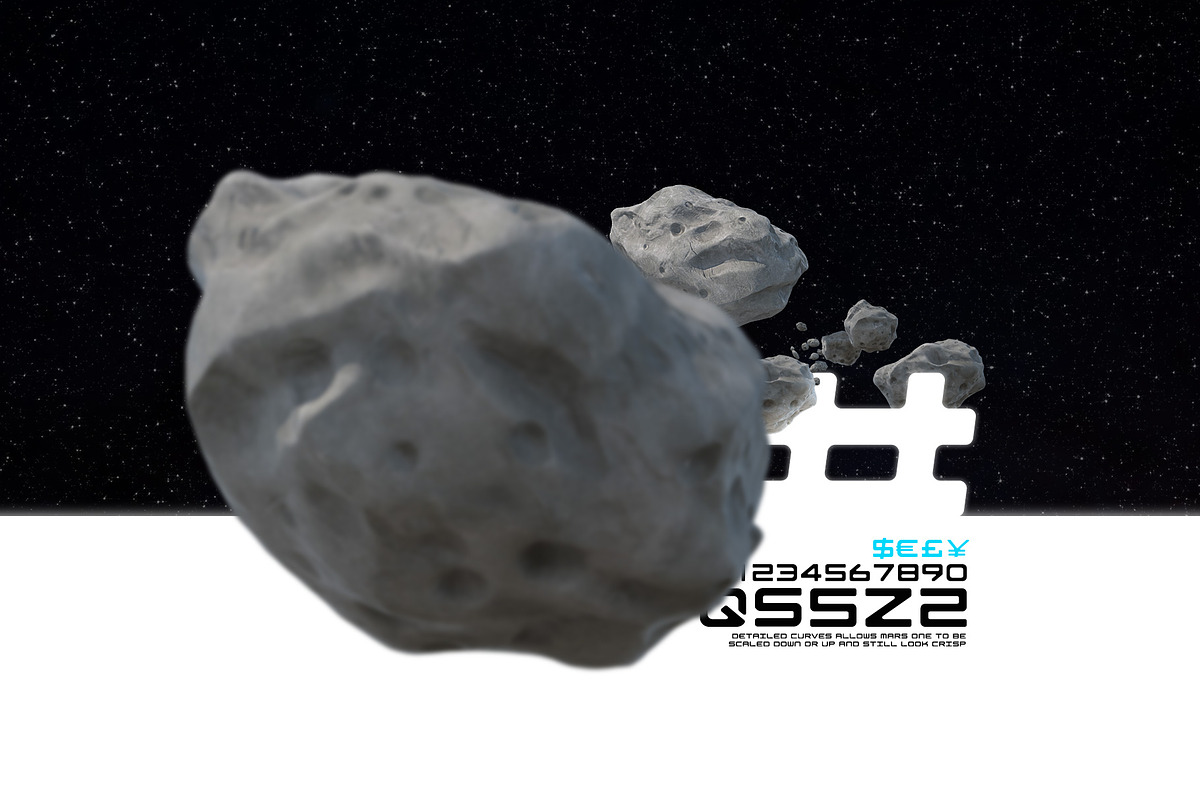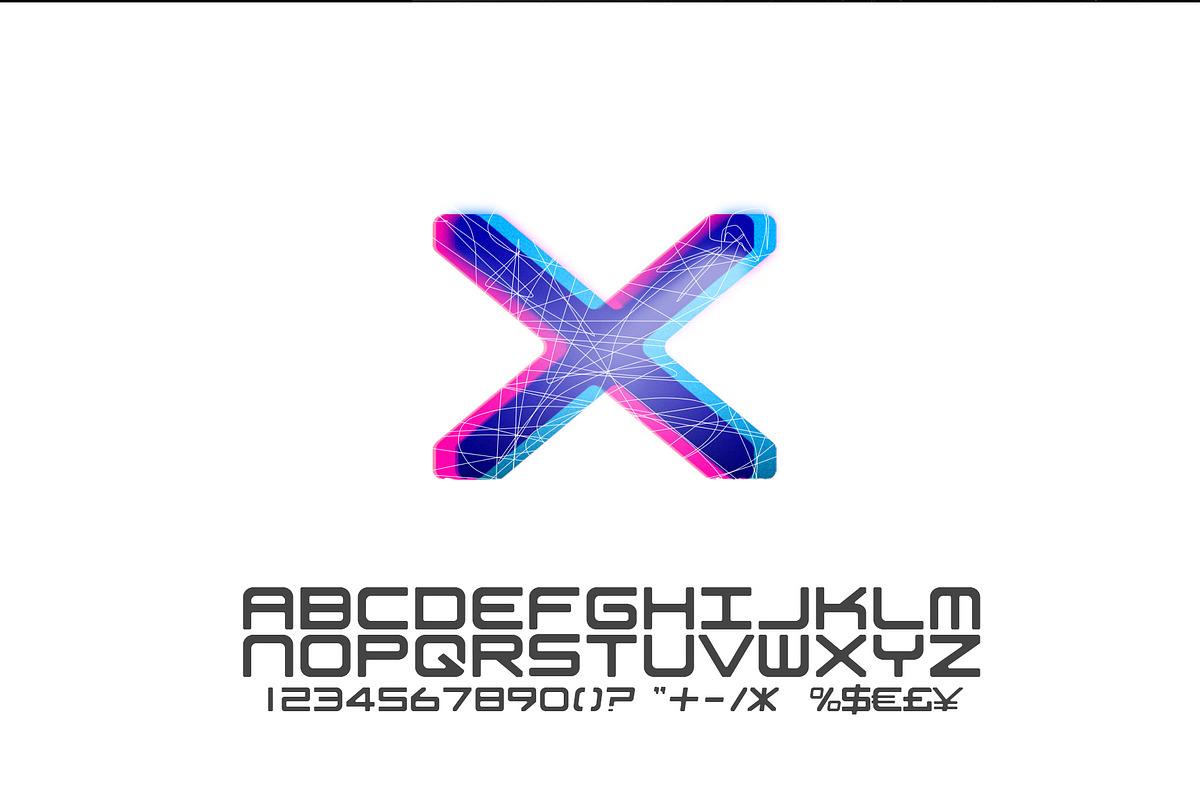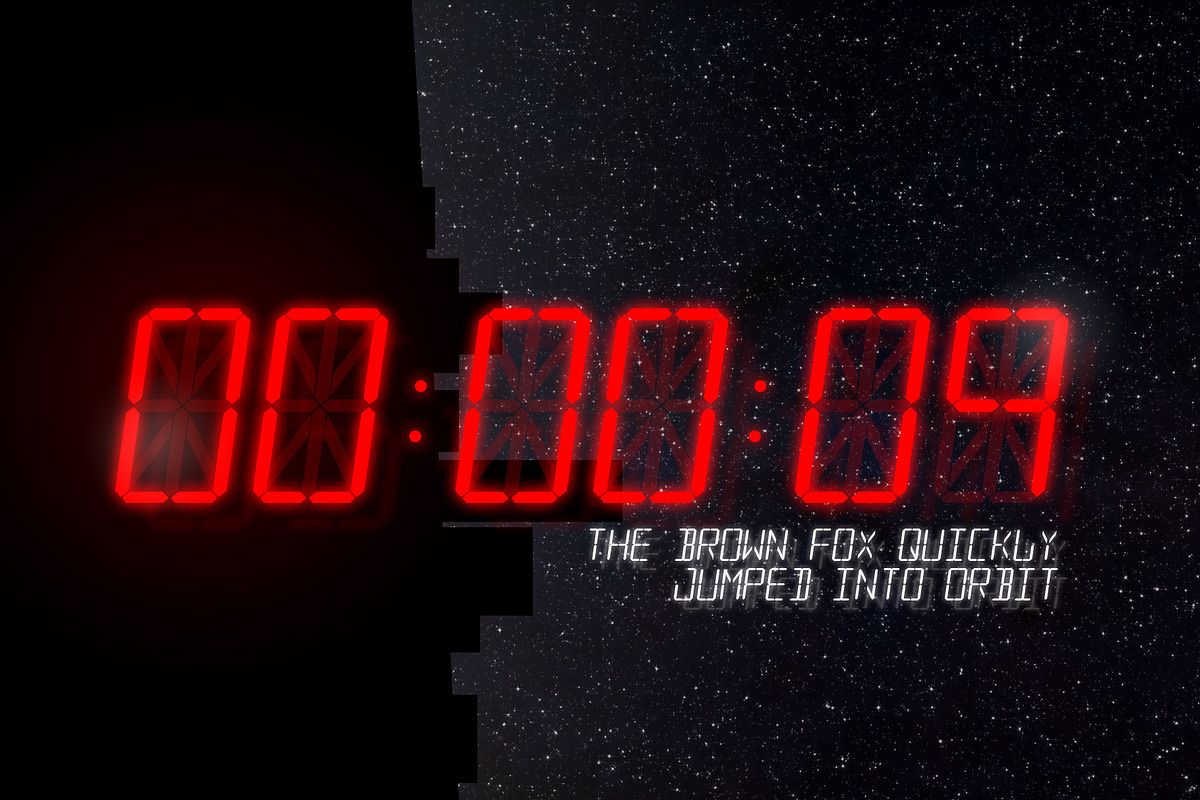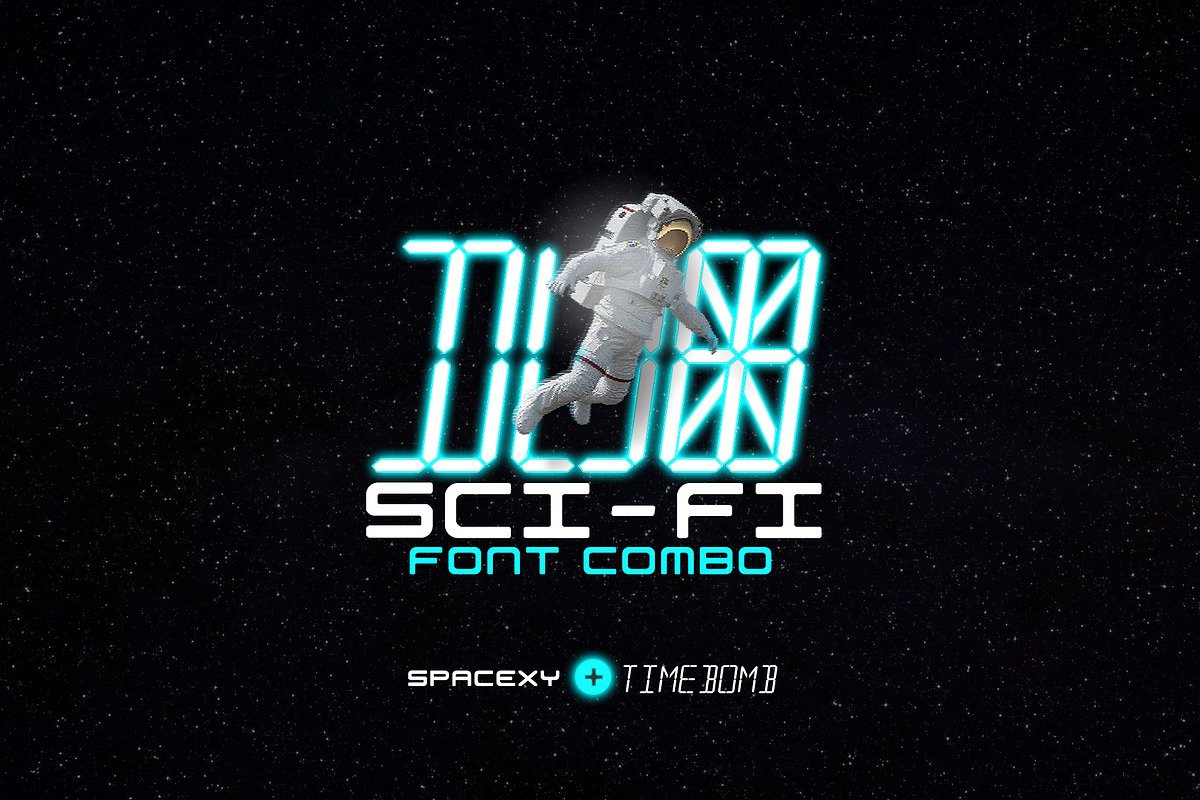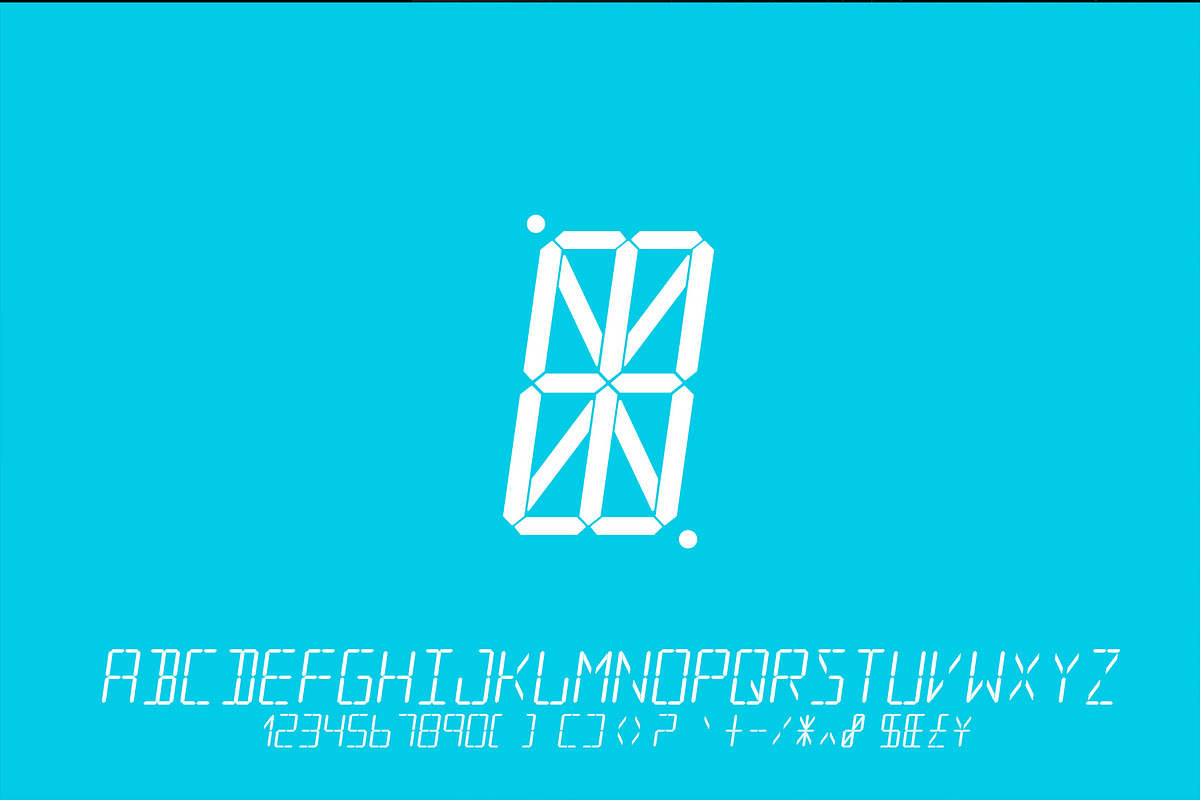
Sci-fi Font Collection
Get these two awesome Sci-fi fonts in this single awesome bundle.
Spacexy: Is a well-crafted sci-fi font that works well on logos, presentations and science fiction book covers.
TimeBomb A classic LCD(Liquid Crystal Display) font. It was created using a real LCD grid making it is 100% accurate.
Full alpha-numeric set
Major currencies (USD, Euro, Sterling Pound, Yen)
Every major symbol available on a standard keyboard (US)